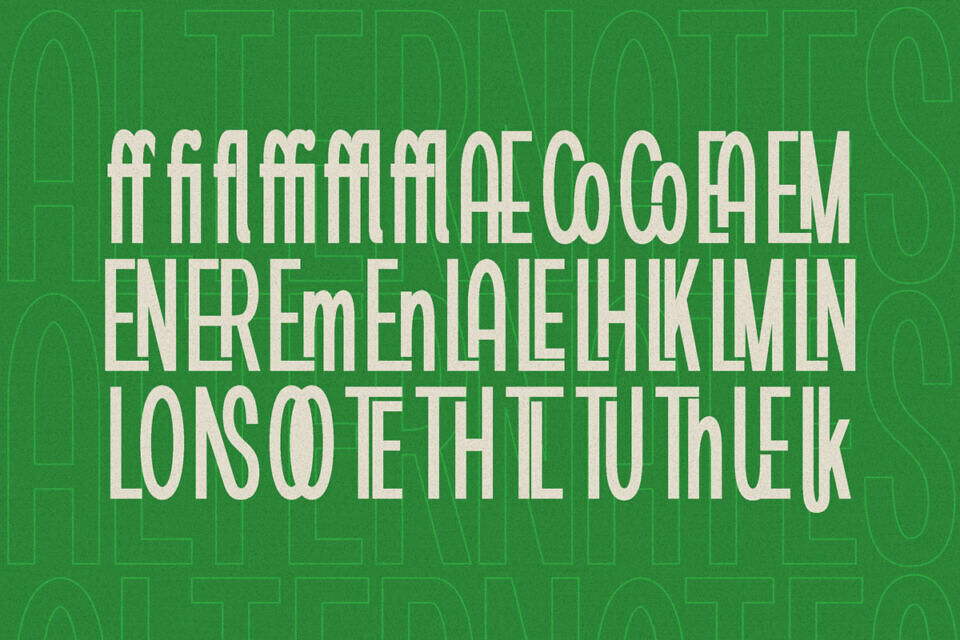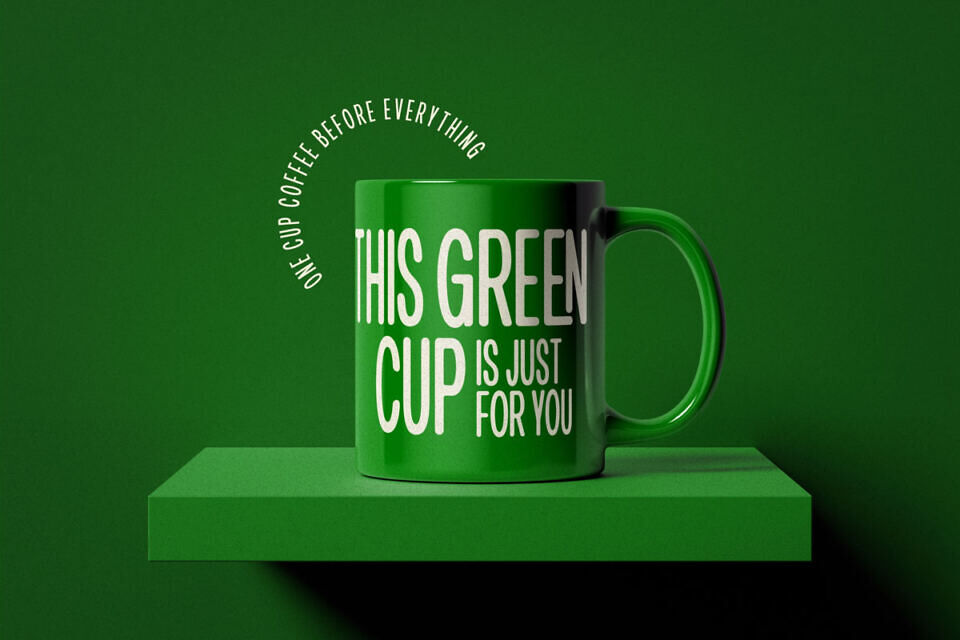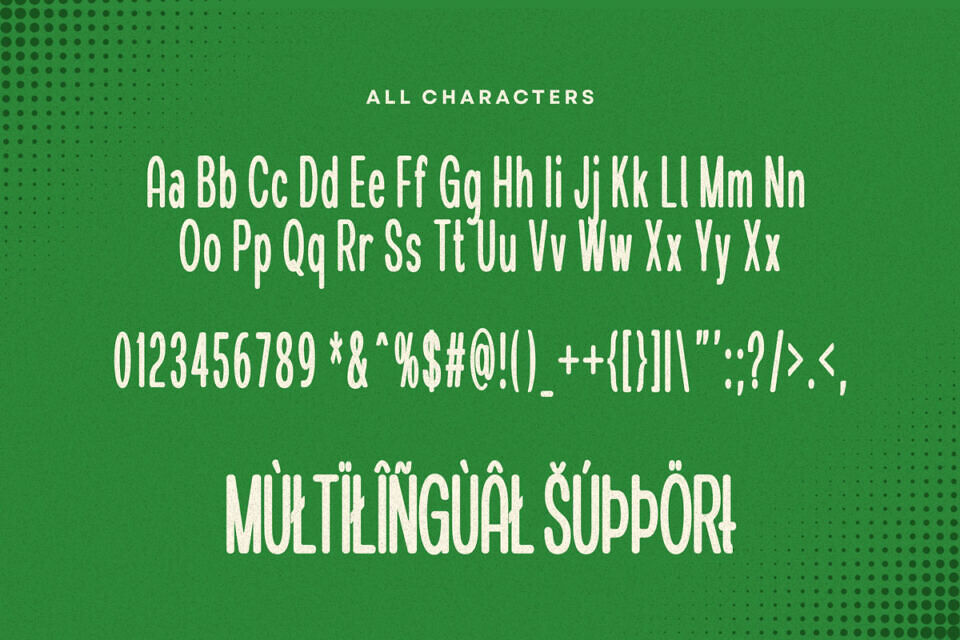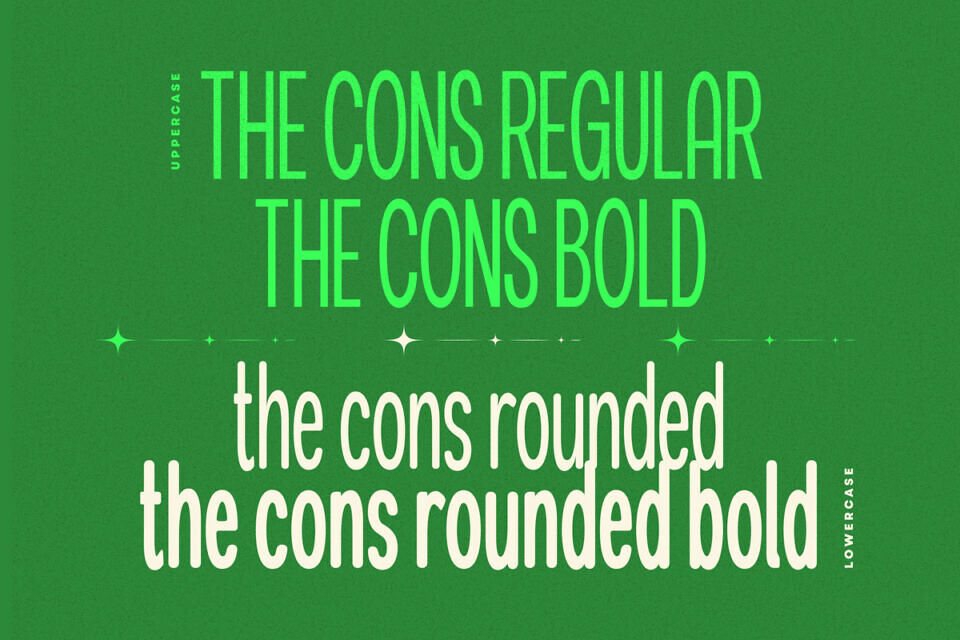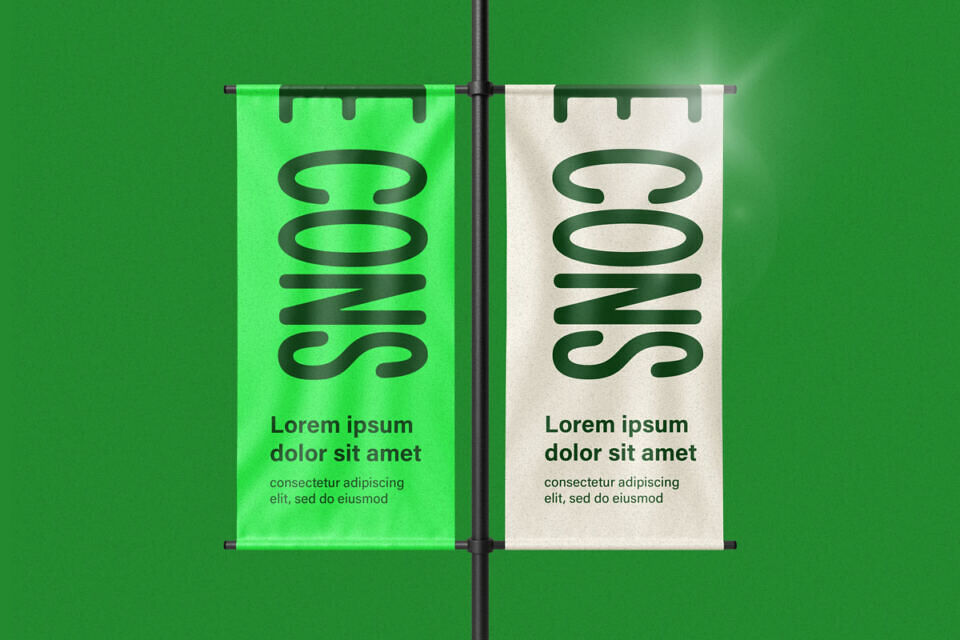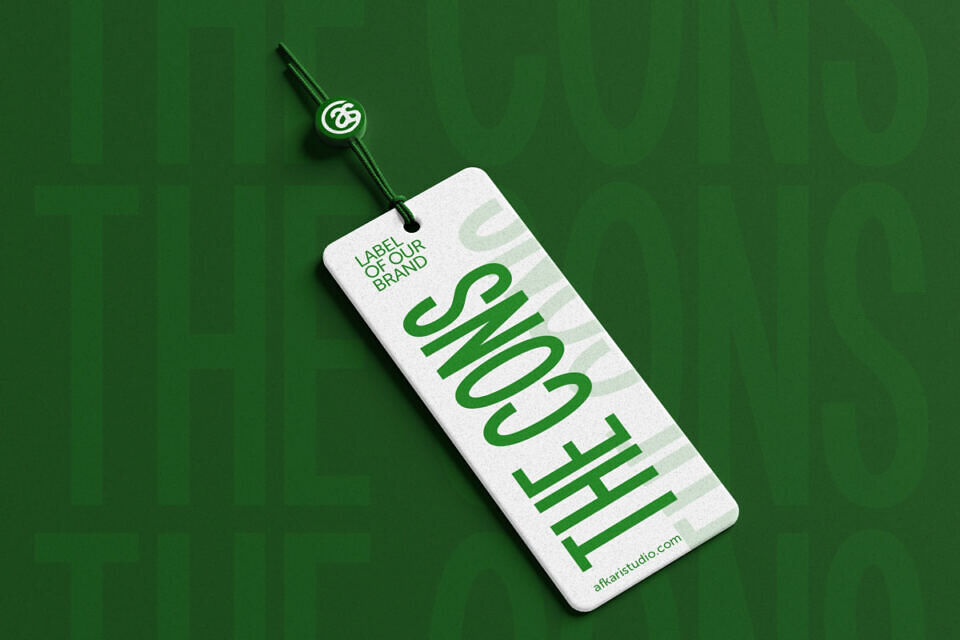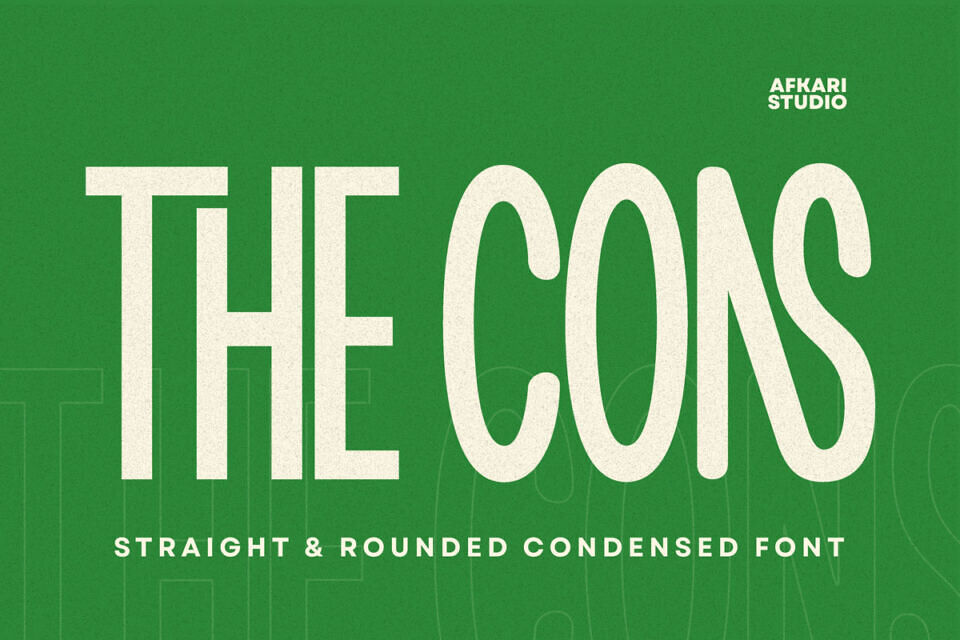
The Cons Font
The Cons – Condensed Sans Serif Display Font is a strong, compact typeface crafted for designers who need maximum impact with minimal space. Its narrow letterforms and clean lines make it perfect for bold headlines, editorial layouts, modern branding, etc.
Whether you’re building a tech-forward brand or an urban editorial spread, The Cons delivers clarity, style, and adaptability in every character. It’s the perfect choice for designers who value bold presence and clean design.